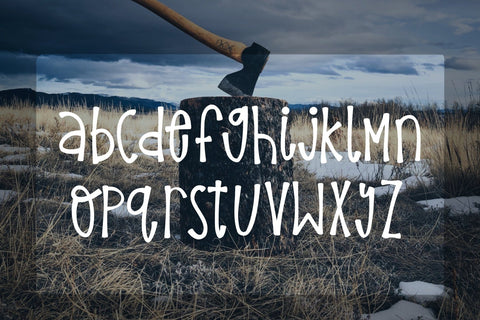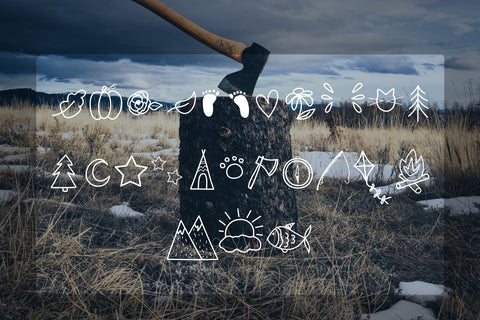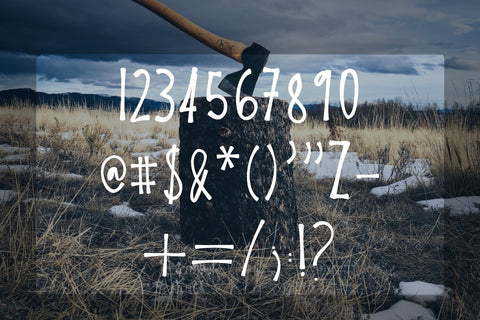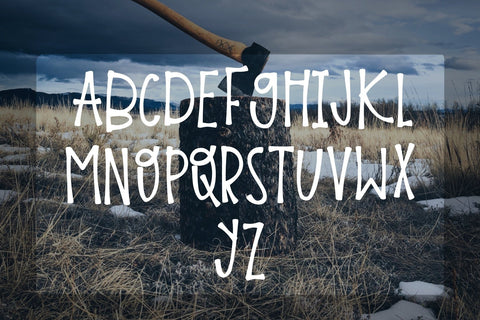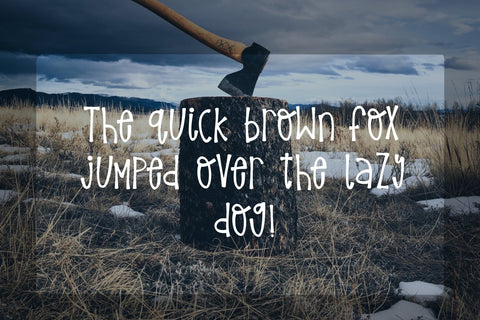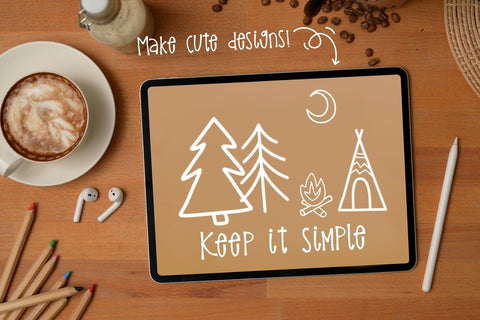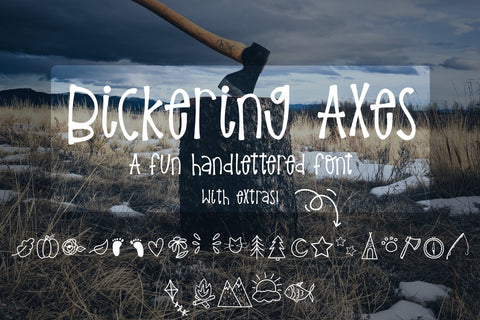
Bickering Axes - A Fun Outdoorsy Font!
Introducing Bickering Axes! A fun, woodsy, hand lettered font - with dingbats!
Look through to see the fun doodles of tents, fires, trees, and more.